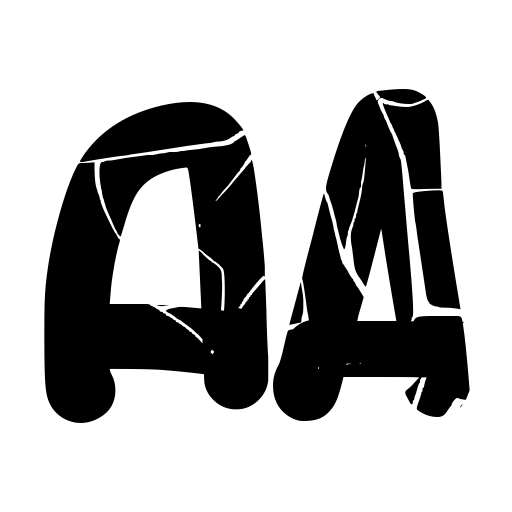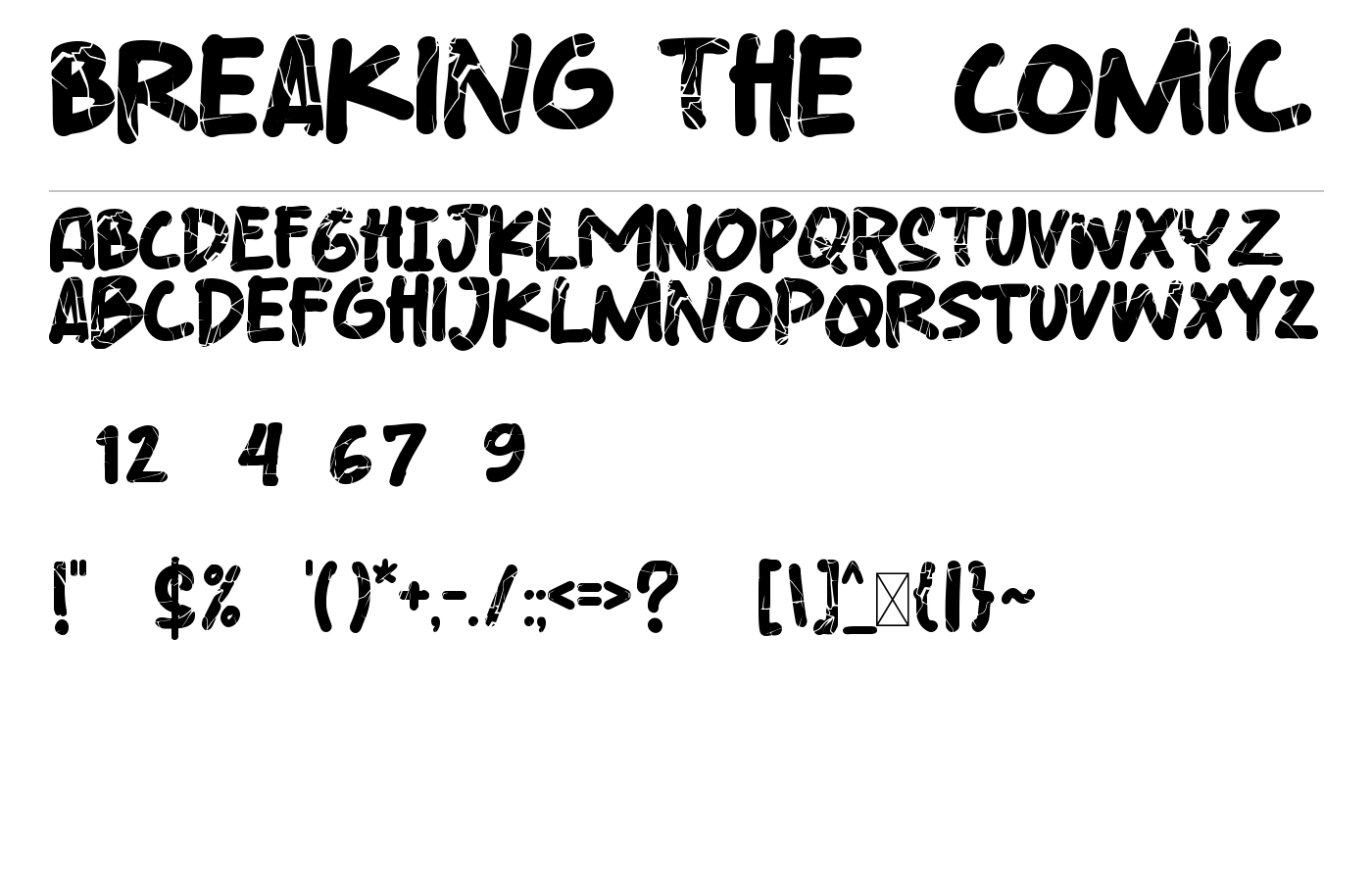
Breaking The Comic Font is a bold, playful display typeface with a hand-drawn, comic book style. Its rough, inked texture with cracked, splintered details adds a dynamic, energetic feel, making it perfect for eye-catching headlines, posters, and creative projects aimed at a fun, adventurous vibe. This font works best in designs needing personality and a casual, striking look rather than clean readability for long text.
Breaking The Comic Font
About Breaking The Comic Font
| Font family | Breaking The Comic Font |
| Designer | Anang F & Malik Wsn | Gassstype© Studio 2021 |